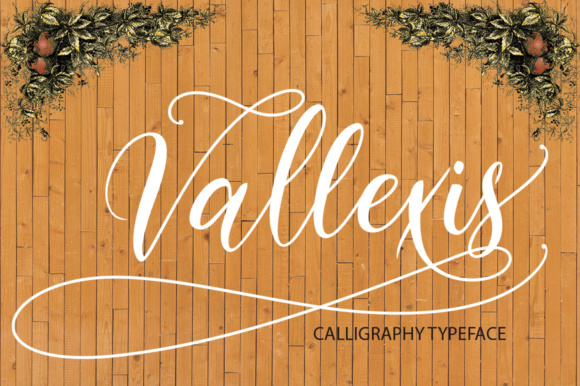
Vallexis Font
Step into the realm of elegance and sophistication with the captivating Vallexis Font, a script typeface that will transform your design projects into works of art. This exquisite font exudes a timeless charm, adding a touch of allure to your creations. Its delicate hairlines and graceful curves dance across the page, evoking a sense of ethereal beauty.
With its delicate beginning and end swashes, Vallexis Font adds a touch of femininity and romance to your design. Each letter is meticulously crafted, showcasing intricate details that will leave you mesmerized. Whether you're working on wedding invitations, branding projects, or social media graphics, Vallexis Font will elevate your designs to new heights.
Designed by the talented YanIndesign, Vallexis Font embodies the essence of elegance and sophistication. Its versatility is truly remarkable, effortlessly complementing a wide range of design styles. From classic and vintage to modern and contemporary, Vallexis Font seamlessly adapts to your creative vision, ensuring your designs stand out from the crowd.
Bring your creations to life with the enchanting Vallexis Font. Its undeniable beauty and charm will captivate your audience, leaving a lasting impression. Embrace the allure of this magnificent typeface and embark on a design journey that will redefine elegance and grace.